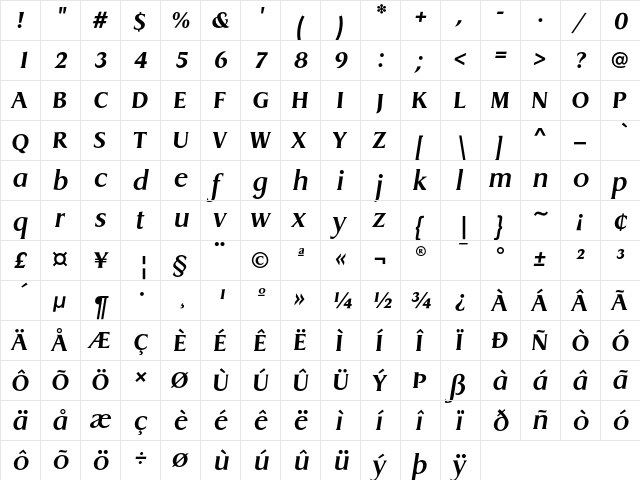
DragonEF DemiBoldItalic
Design Context for DragonEF Typeface
DragonEF takes a measured approach to typography — its balanced proportions and neutral character make it a reliable workhorse for both digital and print work. The slanted form adds forward momentum and visual energy. The heavy weight commands attention and anchors typographic hierarchies.
Pro Tip: Try DragonEF for annotation and caption copy alongside an upright companion — the contrast in angle creates a dynamic but ordered typographic system.